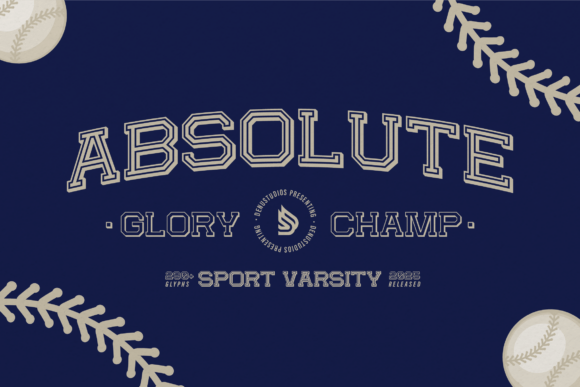
Absolute Glory Champ Font for Athletic Crafts and Bold Labels
As a small business owner constantly searching for typefaces that translate beautifully from screen to physical product, finding the right display font can make or break a design. Absolute Glory Champ is a bold and energetic varsity-style font that brings the spirit of competition and athletic pride to your designs, making it an exceptional choice for crafters who need impact. With strong, outlined letterforms and classic collegiate aesthetics, this Slab Serif typeface stands out among Fonts specifically curated for handmade sellers, printable creators, and merchandise designers. Whether you are cutting vinyl for team apparel or designing digital downloads for sports-themed planners, this font delivers the commercial-grade readability and nostalgic charm that customers love.
Absolute Glory Champ for Varsity Apparel and Team Merchandise
When creating custom apparel or team gear, Absolute Glory Champ serves as a definitive Slab Serif option that captures authentic athletic energy without looking like a generic stock asset. Fonts in the varsity category often struggle with balance when scaled up for t-shirts or hoodies, but the sturdy construction of this typeface ensures that letters remain crisp and proportional on fabric. For Etsy sellers specializing in personalized sports gifts, using Absolute Glory Champ allows you to offer designs that feel premium and professionally typeset rather than amateurish. The bold weight translates exceptionally well to heat transfer vinyl (HTV) and screen printing, reducing the risk of peeling edges or ink bleed that can occur with thinner, more intricate display fonts.
Beyond simple names and numbers, this font excels in creating motivational slogans for gym wear, coaching staff shirts, and tournament memorabilia. Because the letterforms are outlined and substantial, they provide excellent contrast against both dark and light fabrics, which is crucial for product photography and mockups. When listing these items in your shop, the visual authority of Absolute Glory Champ helps communicate quality to buyers browsing through thumbnails. It bridges the gap between retro collegiate nostalgia and modern streetwear trends, allowing you to tap into multiple buyer personas with a single design asset. Remember to test cut settings on scrap material first, as the bold slab serifs may require slightly adjusted blade depth compared to standard sans serif fonts.
Absolute Glory Champ for Sports Event Signage and Welcome Boards
Event stationery and large-format signage require Fonts that maintain legibility from a distance while setting an enthusiastic tone, and Absolute Glory Champ performs brilliantly in this high-visibility role. As a Slab Serif designed for display use, it anchors welcome signs, scoreboard overlays, and directional markers with a sense of tradition and excitement. Crafters producing wedding stationery for couples who met through athletics or want a stadium-themed reception will find this font adds a unique, personalized narrative element that standard scripts cannot achieve. The classic collegiate aesthetic pairs perfectly with rustic wood textures, chalkboard backgrounds, or clean acrylic sheets, offering versatility across different crafting mediums.
Absolute Glory Champ for Product Packaging and Boutique Branding
Branding for handmade businesses often relies on distinctive typography to create shelf appeal, and Absolute Glory Champ offers a unique Slab Serif personality for packaging design. Fonts with this level of structural boldness are ideal for candle labels, coffee bags, soap boxes, and sticker sheets where quick recognition is key. Unlike delicate handwritten fonts that might get lost on textured paper or shrink wrap, the assertive presence of Absolute Glory Champ commands attention and suggests durability and confidence in the product inside. This is particularly effective for brands targeting active lifestyles, outdoor enthusiasts, or school-spirit markets, as the font subconsciously reinforces themes of strength and achievement.
For printable product creators selling editable templates, including Absolute Glory Champ as a recommended pairing or embedded option adds significant value to your listings. Small business owners appreciate having access to commercial-friendly Fonts that solve specific branding problems without requiring extensive graphic design skills. When used for jar labels or box sleeves, consider utilizing the negative space within the outlined letterforms to add subtle texture or color accents, enhancing the perceived craftsmanship of the final product. Always verify the specific licensing terms included with your purchase to ensure you have the rights to use this font for client work, physical product sales, or template distribution, as commercial usage rights vary between foundries.
Pairing Absolute Glory Champ with Scripts and Sans Serifs
Effective design relies on contrast, and Absolute Glory Champ functions best when balanced against complementary Fonts rather than competing display typefaces. As a heavy Slab Serif, it naturally takes on the role of the headline or focal point, so pairing it with a clean, lightweight sans serif for body text ensures your product information remains readable and uncluttered. For example, on a birthday invitation or party favor tag, let Absolute Glory Champ handle the "Happy Birthday" or age number, while using a simple geometric sans serif for the date, time, and location details. This hierarchy guides the customer’s eye and prevents the design from feeling visually overwhelming or chaotic.
Alternatively, combining this varsity-style font with a flowing script creates a dynamic tension that is highly popular in modern crafting trends. The rigid, structured nature of Absolute Glory Champ provides a stable foundation that makes organic, handwritten scripts appear more elegant and intentional. This combination works exceptionally well for graduation announcements, retirement gifts, and commemorative plaques where you want to honor tradition while adding a personal touch. When designing SVG files for cutting machines, keep adequate spacing between the bold slab letters and any accompanying script elements to prevent bridging or tearing during the weeding process. Testing these pairings in your actual production workflow before launching new products will save time and materials in the long run.
Optimizing Absolute Glory Champ for Digital Printables and Templates
Digital product sellers know that Fonts must perform as well on screen as they do in print, and Absolute Glory Champ delivers exceptional clarity for downloadable goods. Whether you are designing social media templates, digital planners, or educational worksheets, this Slab Serif maintains its integrity at various zoom levels and resolutions. The bold outlines render sharply on mobile devices and tablets, ensuring that customers viewing your product previews get an accurate representation of the final file. For teachers and coaches creating digital resources, the athletic vibe of Absolute Glory Champ adds engagement to certificates, award badges, and classroom decor without sacrificing professional polish.